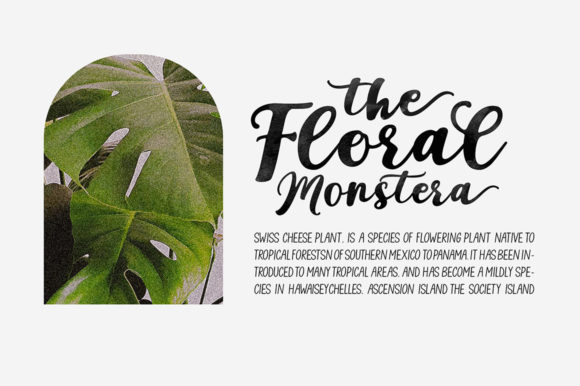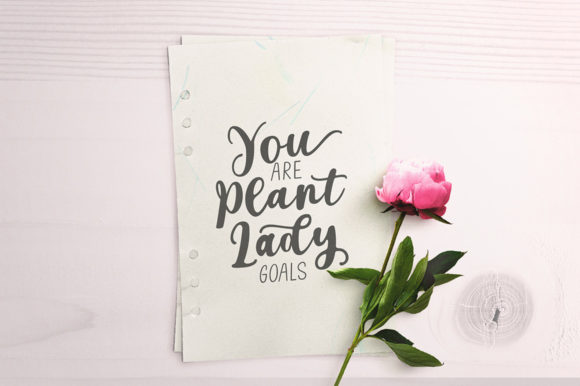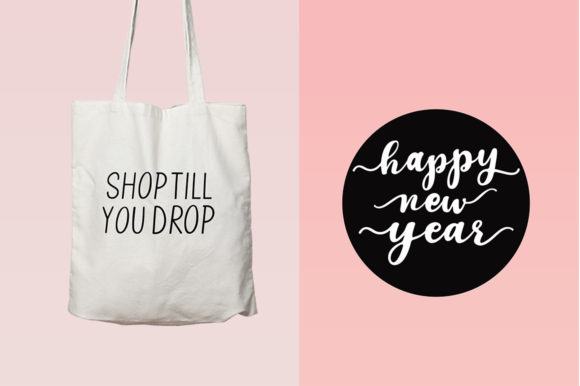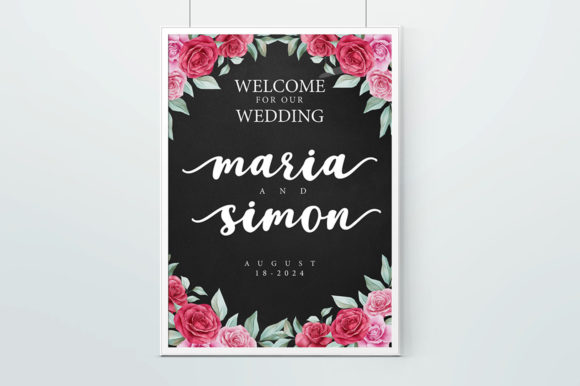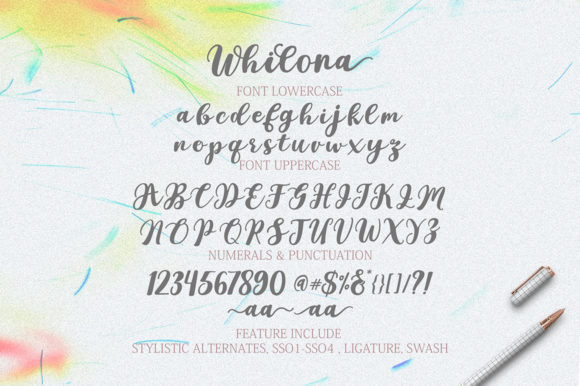
About Whilona Script Font
Whilona Script is one unique handwriting, the shape is modern but pleasing to the eye, and the style is very natural. This font is perfect for branding, web and editorial design, print, craft, and quotes. Also great for logos, wedding invitations, romantic cards, labels, packaging, name spelling, and more.